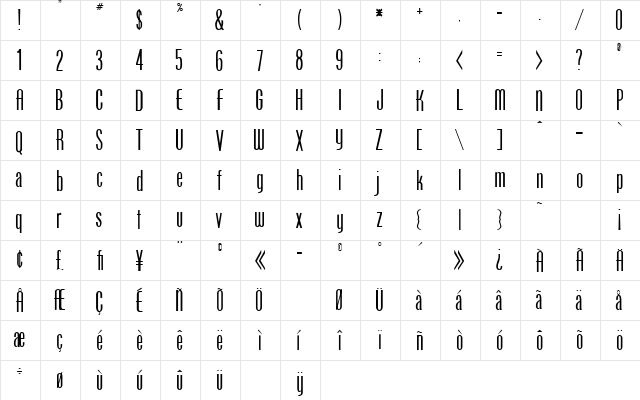
Phoenix Regular
Design Context for Phoenix Typeface
Phoenix takes a measured approach to typography — its balanced proportions and neutral character make it a reliable workhorse for both digital and print work.
Pro Tip: Pair Phoenix with a font of contrasting weight or personality to build a more expressive typographic hierarchy.